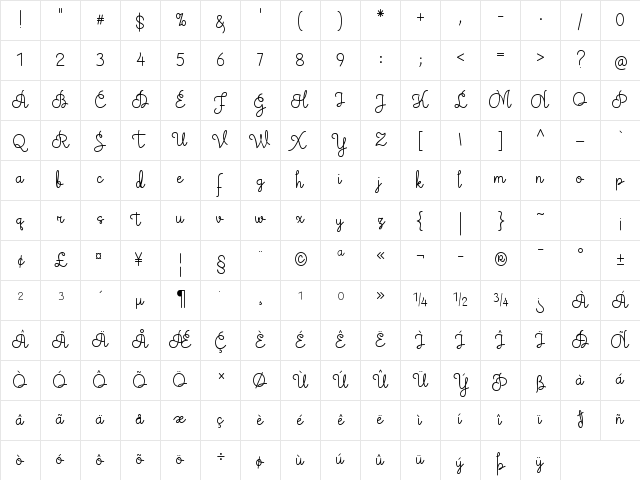
Theodista Decally Regular
Designer: Situjuh Nazara
Design Context for Theodista Decally
Theodista Decally is a composed and adaptable typeface that performs quietly and consistently across a wide range of design contexts.